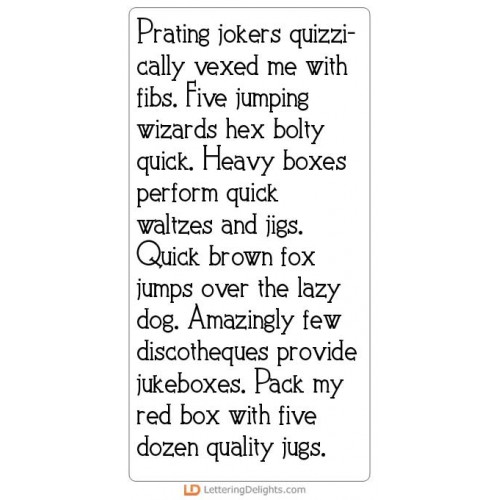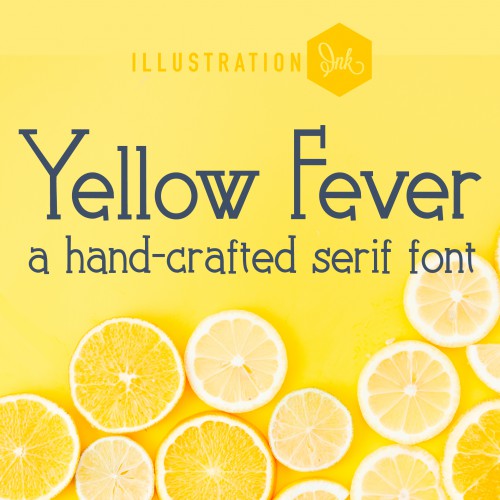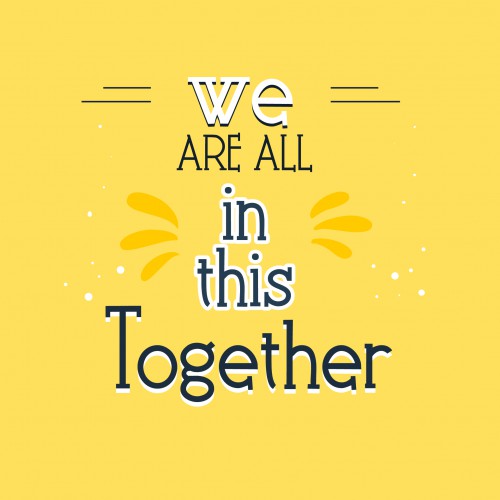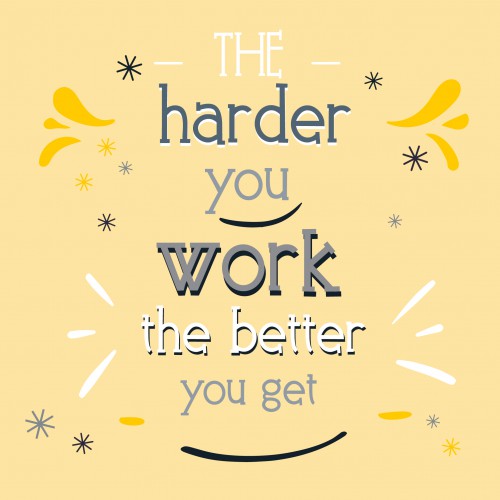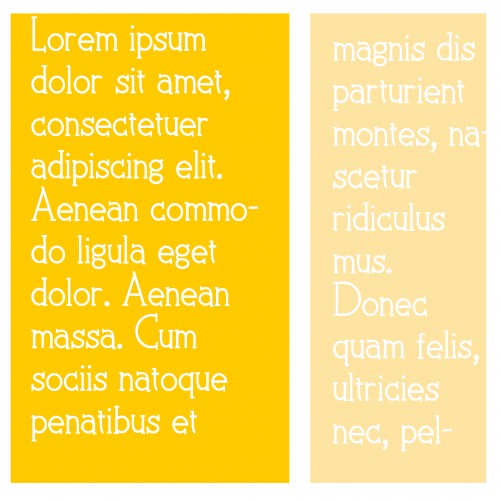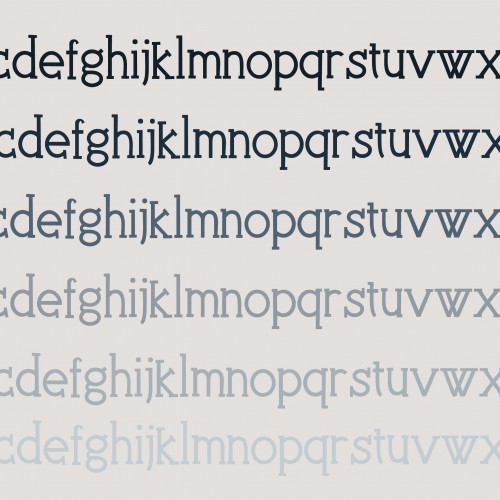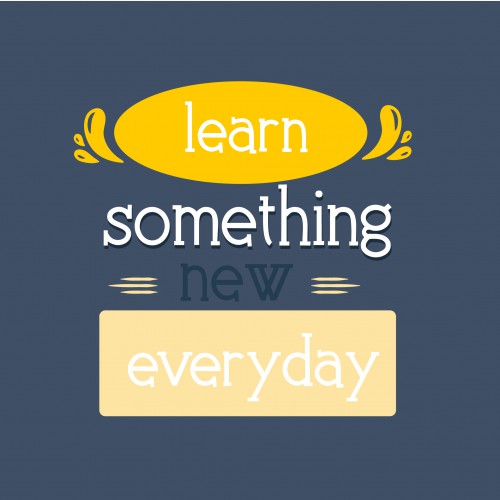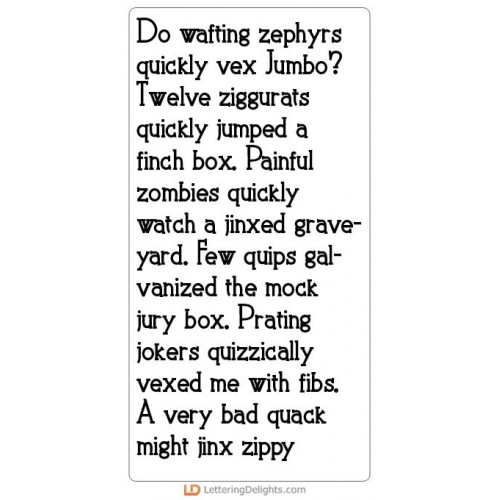
PN Yellow Fever Light - FN
This hand-crafted serif font is blocky and great for titles, displays, posters and more...
PN Yellow Fever - FN
This hand-crafted serif font is blocky and great for titles, displays, posters and more...